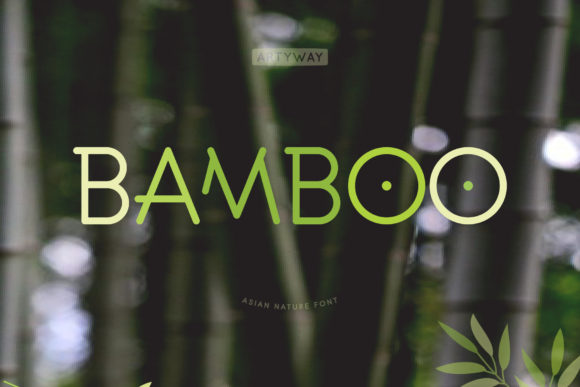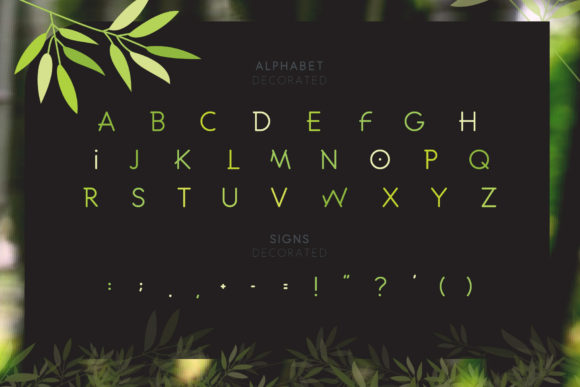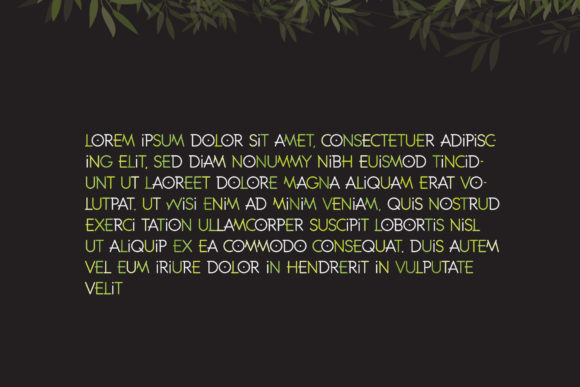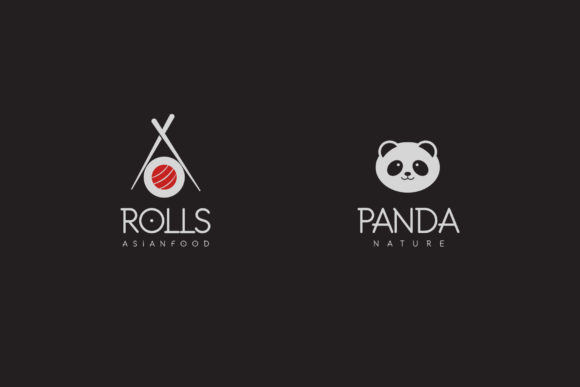
Bamboo Font
About the Bamboo Font
Elevate your designs with Bamboo Font, a font that combines sophistication with readability. Bamboo is a powerful display font. It is inspired by the Asian culture. Cleanliness and lightness are combined with depth and mystery.
Bamboo excels as a headline font for projects emphasizing a modern, yet subtly traditional aesthetic. Its strength lies in branding applications requiring a touch of elegance and sophistication, such as logos, short taglines, and packaging for high-end products. Avoid using Bamboo for large blocks of body text or UI elements; its unique forms are best suited for impactful, shorter displays.
Consider pairing Bamboo with a clean sans-serif like Montserrat for a balanced contrast, or a delicate script font such as Great Vibes for a more luxurious feel. For a more contemporary approach, a geometric sans-serif like Futura would create a strong, modern pairing. The overall personality of Bamboo is sophisticated, calm, and modern with a hint of exotic intrigue.